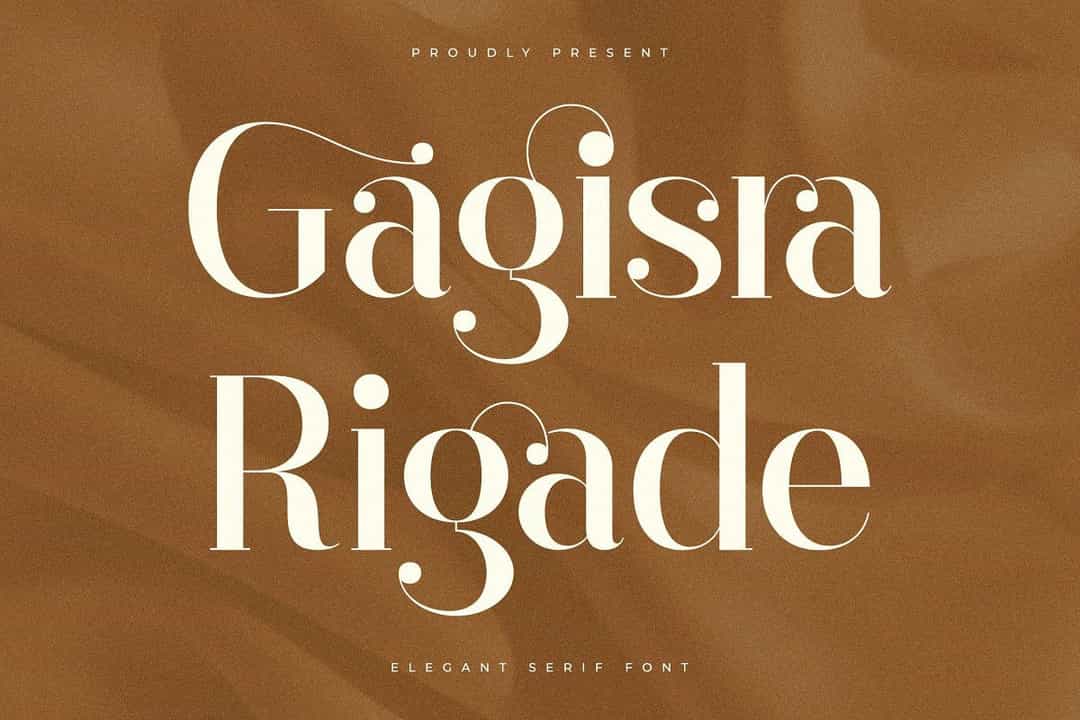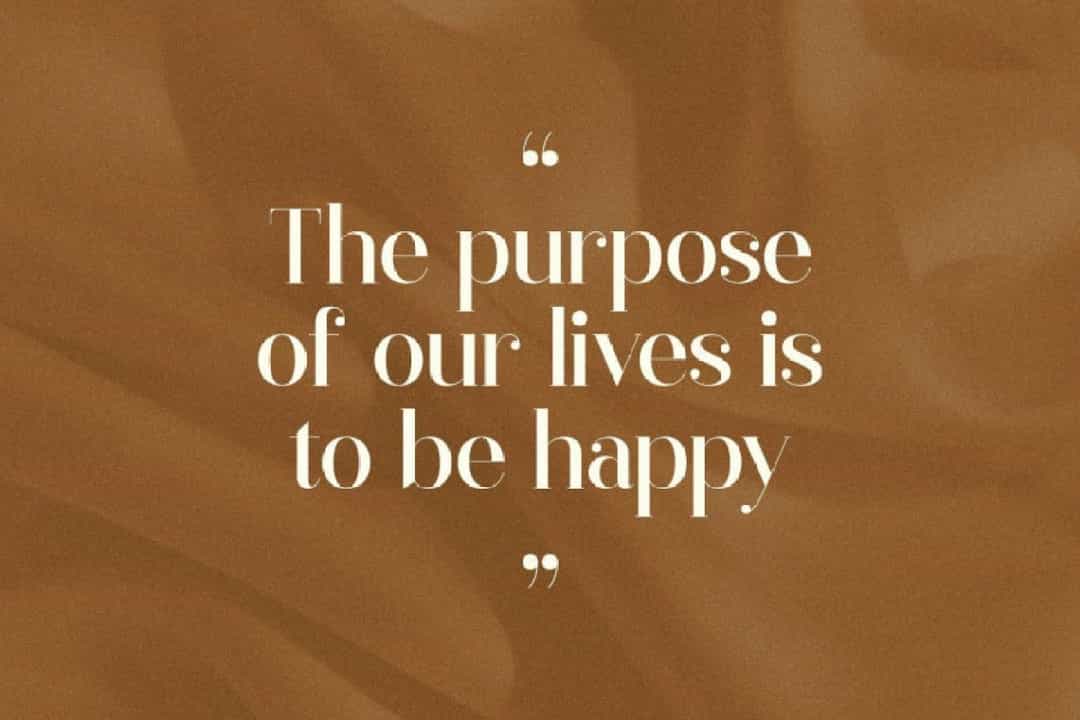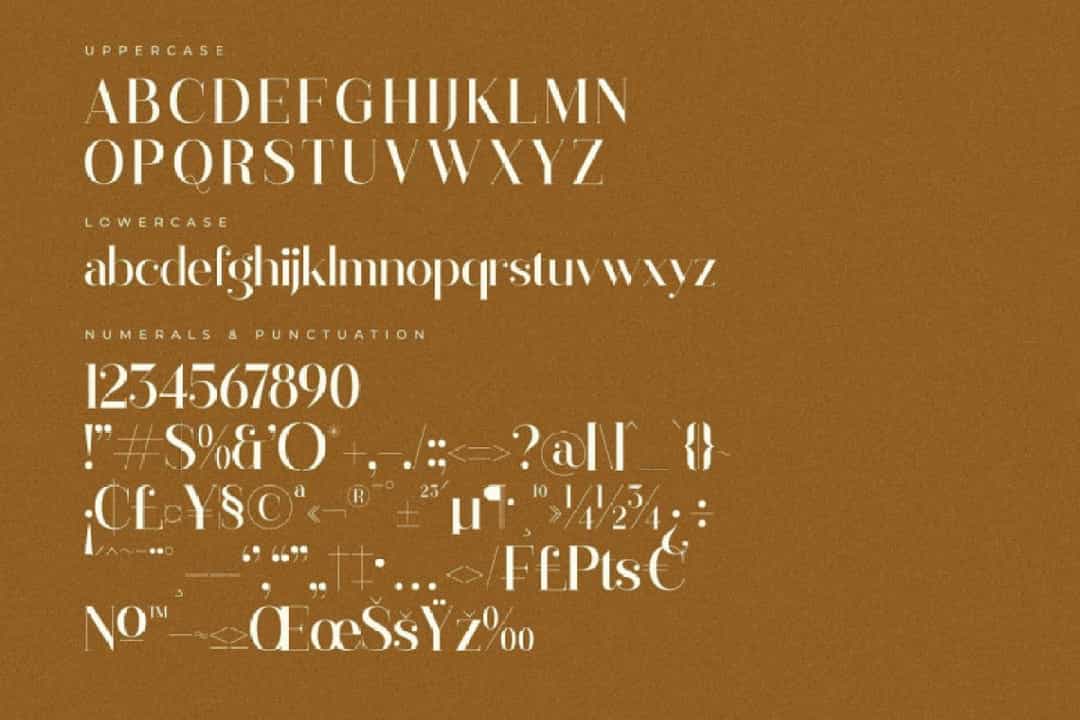
Gagisra Rigade is an old-fashioned serif font with an eye-catching design and contemporary aesthetic, ideal for use in luxurious logos, movie or book styles, fashion labels clothing magazines and lettering services, quotes as well as much more.